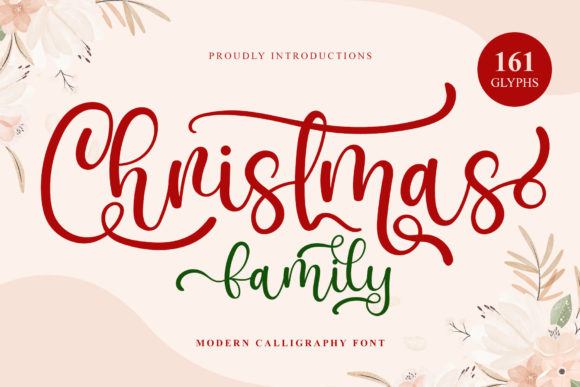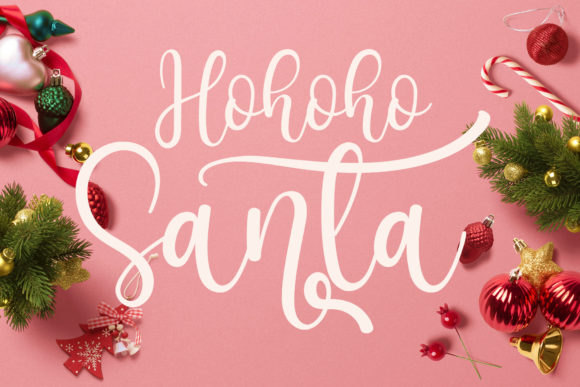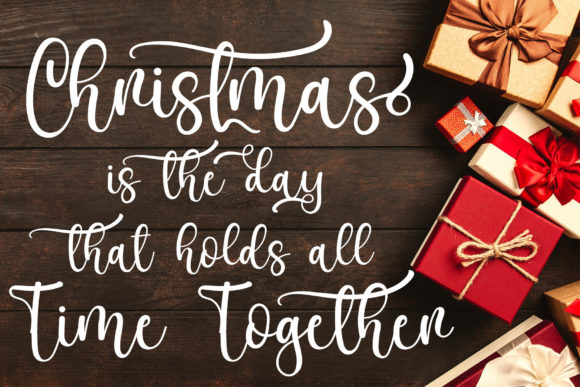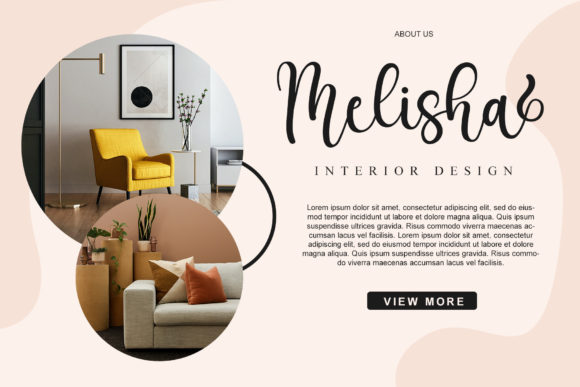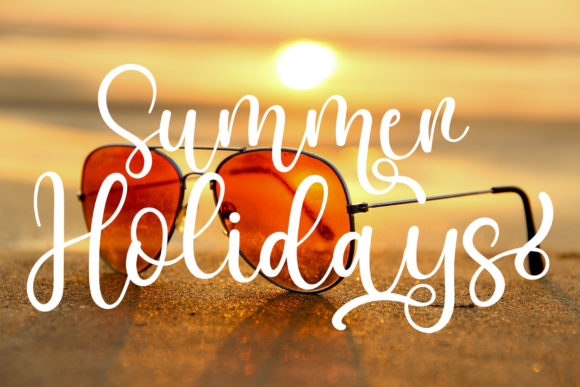
Christmas Family Font
About Christmas Family Font
Christmas Family is a festive and sweet calligraphy typeface with characters that dance along the baseline. It will add a luxury spark to any design project that you wish to create!